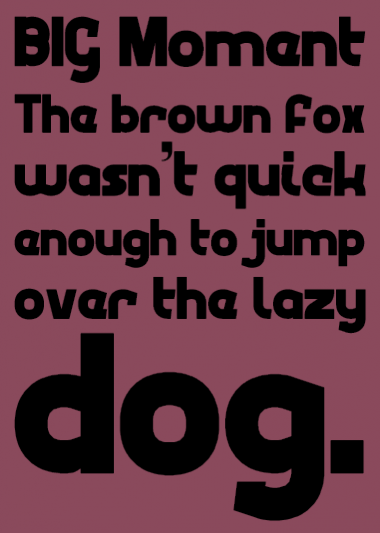
SO cool. Except Q. 1000/10
I like it, but I also agree with demonics about the Q. I like the shape, but the thin tail doesn't fit with the rest of the design. As to the s ... try maybe making one by using the r and combining its reverse for the bottom, or perhaps make the middle like the z?
Awesome.
Awesome font! I agree about the Q. Really nice font!
@demonics, sarreyn, winty5: I fixed "Q".
So much to love here.
I really like the C and c.
Excellent design. 10/10
I would be tempted to optically correct the O, o, Q by incresing the height one brick and also taking it one brick below the baseline. This gives the appearance of making these rounded characters the same as the rest.
Impressive project!
@p2pnut: I fixed up "O, Q, and o" as you said.
Lookin' good :)
Nice new Q!
The "S" and "C" are my faves.
lowercase s could be improved.
@winty5: I can't necessarily improve "s" well enough for better look. For now, I'm stuck with this.
I think the s is good, considering the tight space. I'm not really into M/W, but otherwise great font!
I'm not for this e.
@Yautja: I'll fix "M and "W".
@opipik: I'll fix "e".
I added the rest of basic latin.
Wow, so BIG!